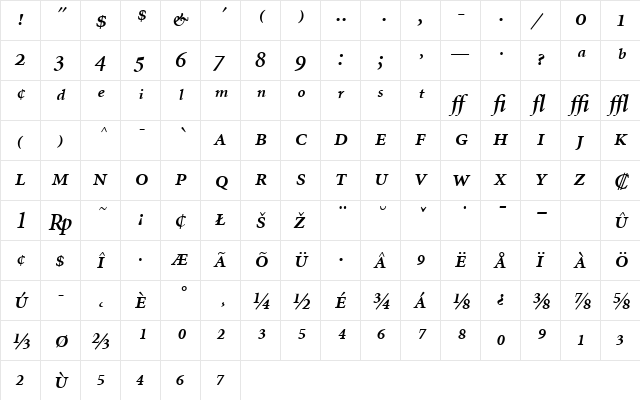
MinionExp-SemiboldItalic Regular Font Preview
Design Context for MinionExp-SemiboldItalic Typeface
MinionExp-SemiboldItalic takes a measured approach to typography — its balanced proportions and neutral character make it a reliable workhorse for both digital and print work. The dynamic lean of this cut emphasises speed and emphasis in any layout. Its bold stroke weight gives it real presence on the page.